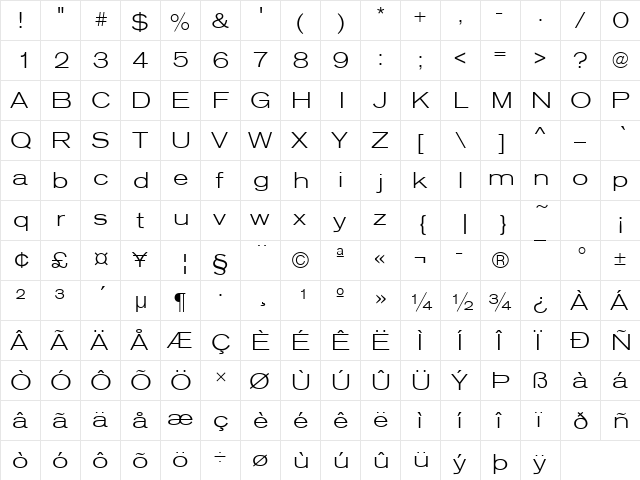
URWAccidaliaTLigExt Regular
Design Context for URWAccidaliaTLigExt Typeface
URWAccidaliaTLigExt takes a measured approach to typography — its balanced proportions and neutral character make it a reliable workhorse for both digital and print work.